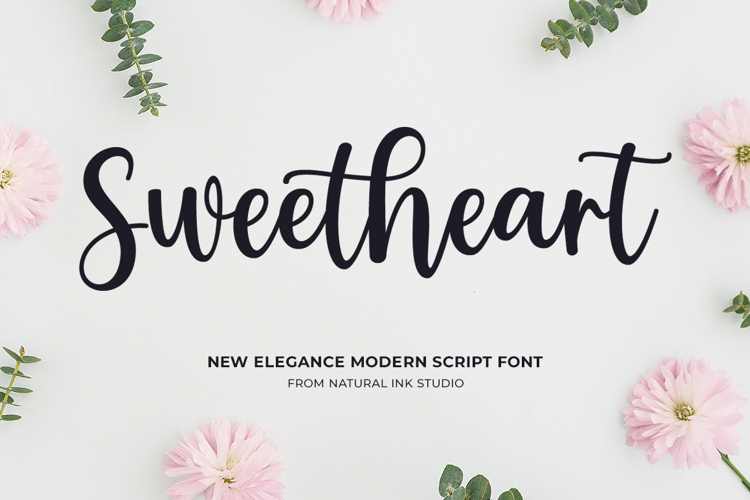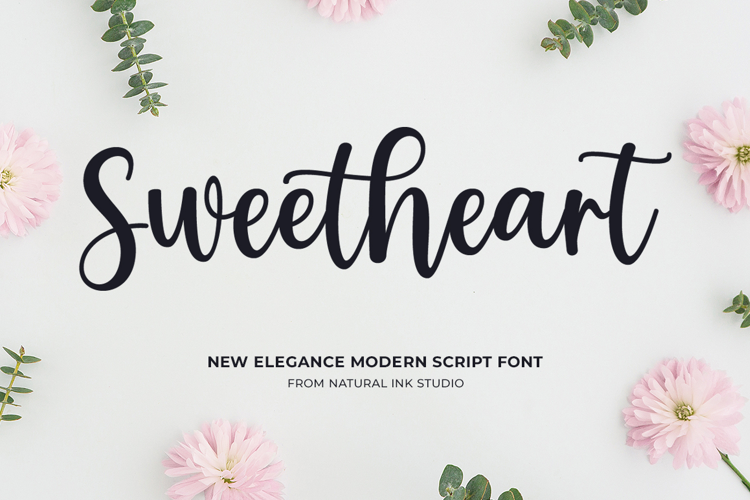
Sweetheart
Unveiling Sweetheart Script - a modern calligraphy marvel featuring a standout Regular style. This effortlessly stylish font, fringed with refined swashes, offers boundless versatility for diverse creative endeavors. Be it crafting immersive logos, tailoring product wraps, designing heartfelt wedding invites, fashioning exclusive brand identities, penning engaging headings, forging distinctive signs or labels, curating catchy book jackets, devising compelling posters, or beautifully articulating your favorite quotes, Sweetheart Script is the life-giving font that imparts your designs with unparalleled charisma and flair. Express your creativity with a font that speaks your language. Experience the allure of Sweetheart Script and let it transform your designs into enchanting art.